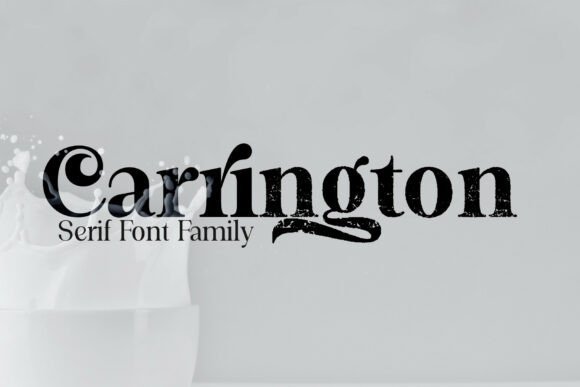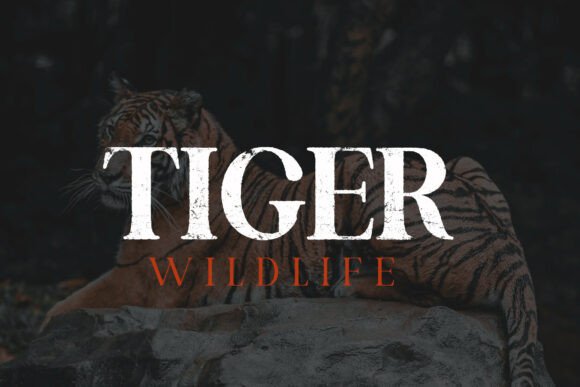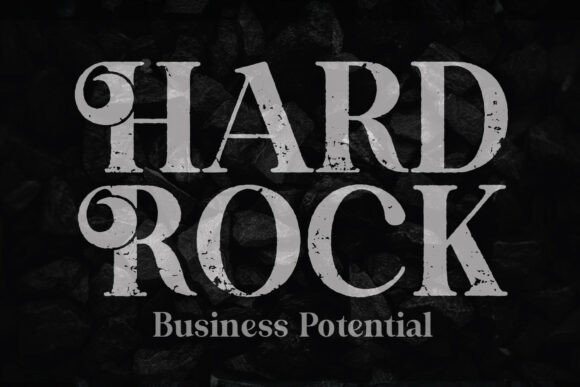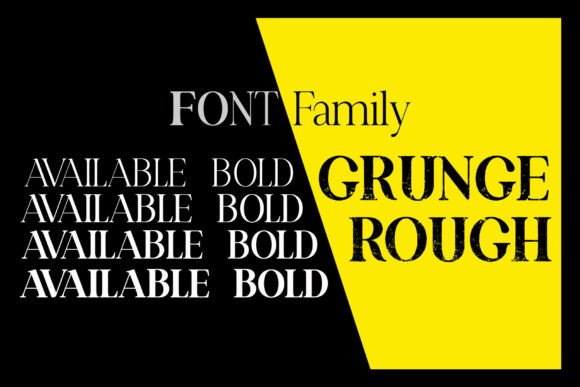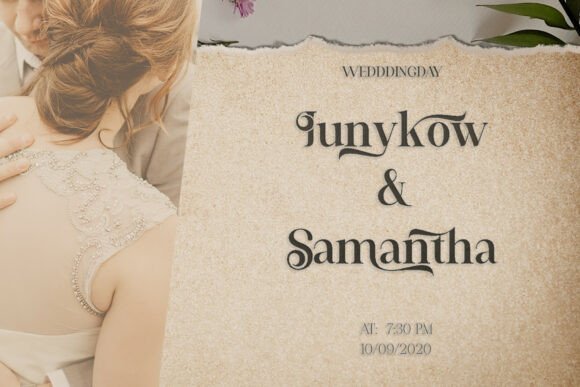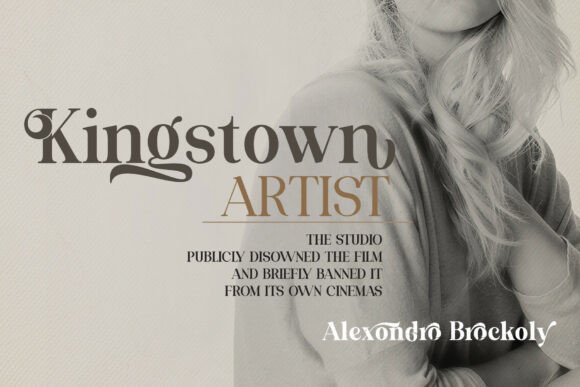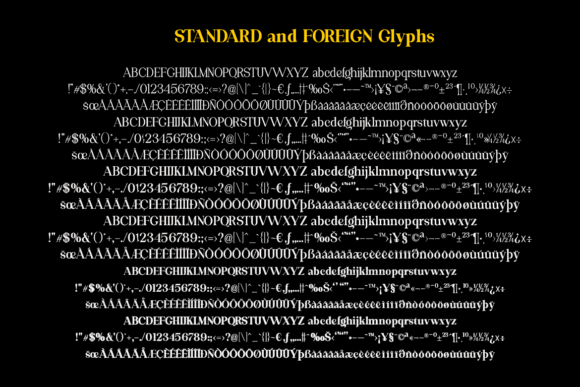
The Perfect Blend of Elegance and Strength: Carrington Font
There’s nothing quite like the thrill of brainstorming a new project, surrounded by blank sheets of paper, and a font library full of endless possibilities. You know that moment when you stumble upon the perfect font, and it all starts to fall into place? That’s exactly what happens when you discover the Carrington Font.
Carrington Font is a versatile and powerful serif font family, boasting eight variants that bring a touch of sophistication and elegance to any design. With its strong and bold character, it’s the perfect choice for logos, quotes, advertisements, and more. Whether you’re a seasoned designer or just starting out, Carrington Font is an invaluable asset to have in your toolkit.
Carrington Font Key Features
- Font Type: Serif Font, with a classic and elegant feel
- Unique Characteristics: Geometric shapes, classic lines, and elegant curves, making it ideal for formal and sophisticated designs
Carrington Font Review
Carrington Font is a beautiful, elegant serif font that exudes luxury and sophistication. ✨ I was immediately drawn to its classic feel, reminiscent of traditional printing presses. The font is perfect for creating high-end designs, from magazine covers to wedding invitations.
Here are some of the things that work well with Carrington Font:
- Its classic, timeless feel that never goes out of style
- Perfect for creating a sense of luxury and sophistication
- Elegant, refined lines that add a touch of sophistication to any design
- Comes in a range of weights and styles to suit different design needs
- May not be suitable for modern or edgy designs, as it’s quite traditional
- Some users may find the font a bit too ornate or fussy
- Not as versatile as some other fonts, which may limit its use in certain contexts
Overall, I think Carrington Font is a beautiful choice for designers looking to create high-end, elegant designs. While it may not be the best fit for every project, it’s a great addition to any designer’s toolkit. ✨
The Carrington Font is ideal for creating elegant and sophisticated designs in Canva, such as invitations, business cards, and brochures.
The Carrington Font is ideal for creating high-end designs in Adobe Photoshop and Illustrator, such as logos, branding materials, and editorial content.
The Carrington Font is ideal for creating professional-looking presentations and documents in PowerPoint and Word, such as business reports, resumes, and academic papers.
Tips for Getting the Most Out of the Carrington Font
1. Use the Carrington Font in combination with other elegant fonts to create a sophisticated look.
2. Experiment with different font sizes and colors to add depth and interest to your designs.
3. Use the Carrington Font for titles and headings to create a clear hierarchy of information.
Alternatives to Carrington Font
Oswald is a sans-serif font designed by Vernon Adams. It is a great alternative to Carrington Font for projects that require a modern and clean look. Oswald is more geometric and has a slightly condensed feel, making it ideal for titles and headings. It is also highly legible and suitable for body text.
Comparison to Carrington Font: Oswald has a more modern and geometric feel compared to Carrington Font, which has a more elegant and refined look. Oswald is also more versatile and can be used in a wider range of projects.
Lato is a sans-serif font designed by Łukasz Dziedzic. It is a great alternative to Carrington Font for projects that require a friendly and approachable look. Lato has a rounded feel and is highly legible, making it ideal for body text and titles. It is also highly customizable and can be used in a variety of contexts.
Comparison to Carrington Font: Lato has a more rounded and friendly feel compared to Carrington Font, which has a more elegant and refined look. Lato is also more versatile and can be used in a wider range of projects.